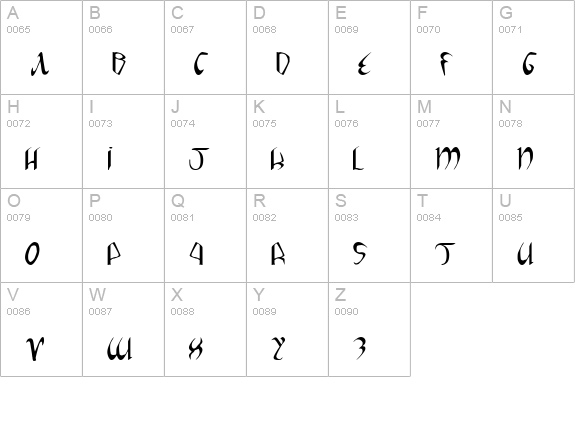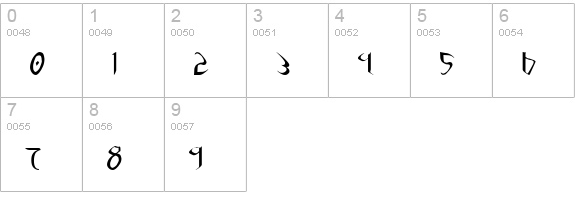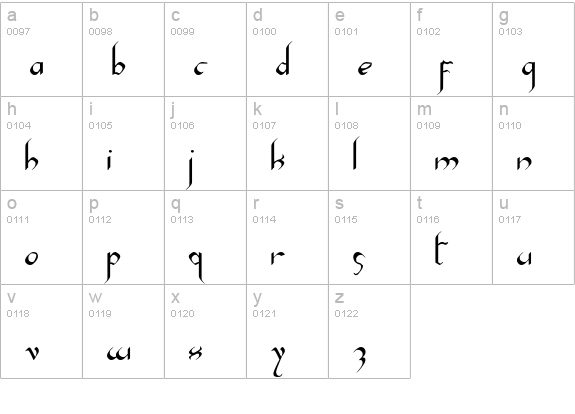
Introducing Xaphan II font, a stunning display typeface that merges modern elegance with a touch of vintage charm. This versatile font is perfect for adding a sophisticated yet playful vibe to your projects, whether it's branding, packaging, invitations, or social media graphics. Featuring unique letterforms and a balance of sharp angles and soft curves, Xaphan II font exudes a sense of creativity and individuality. Its bold presence on the page demands attention and makes a lasting impression on the viewer. What sets Xaphan II font apart is not only its aesthetic appeal but also its accessibility. This font is available for free download at FontsMarket.com, making it a valuable addition to any designer's toolkit. Embrace the creativity and versatility of Xaphan II font to elevate your designs and leave a lasting impact on your audience.